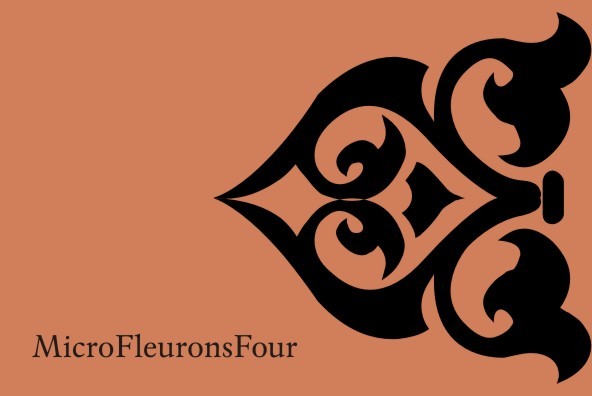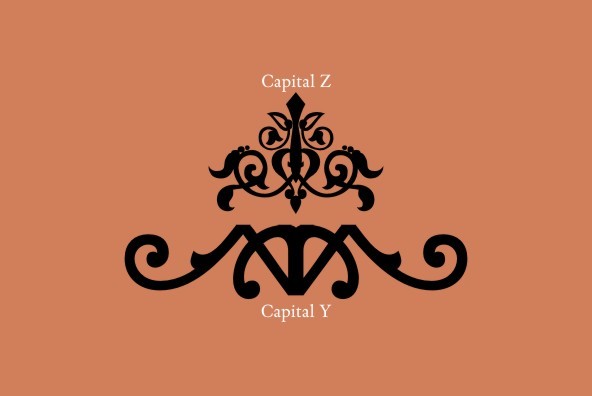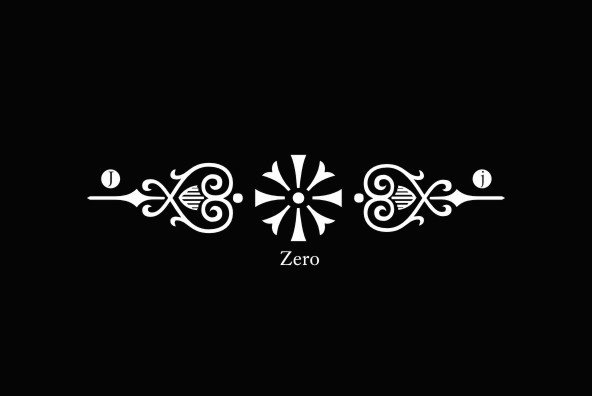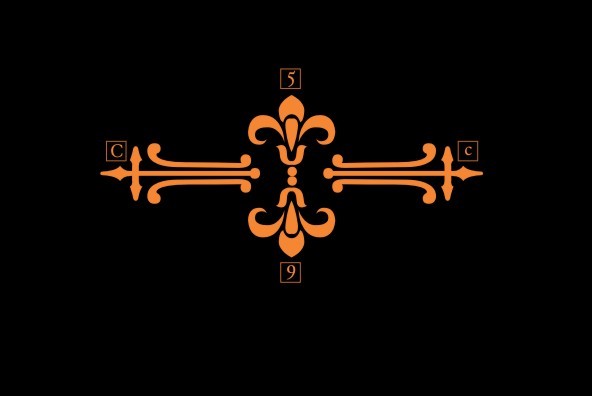
Micro Fleurons Four
Micro Fleurons has small decorative motifs to use in small and soft design projects. Works great when flourish and ornament like assets are needed.